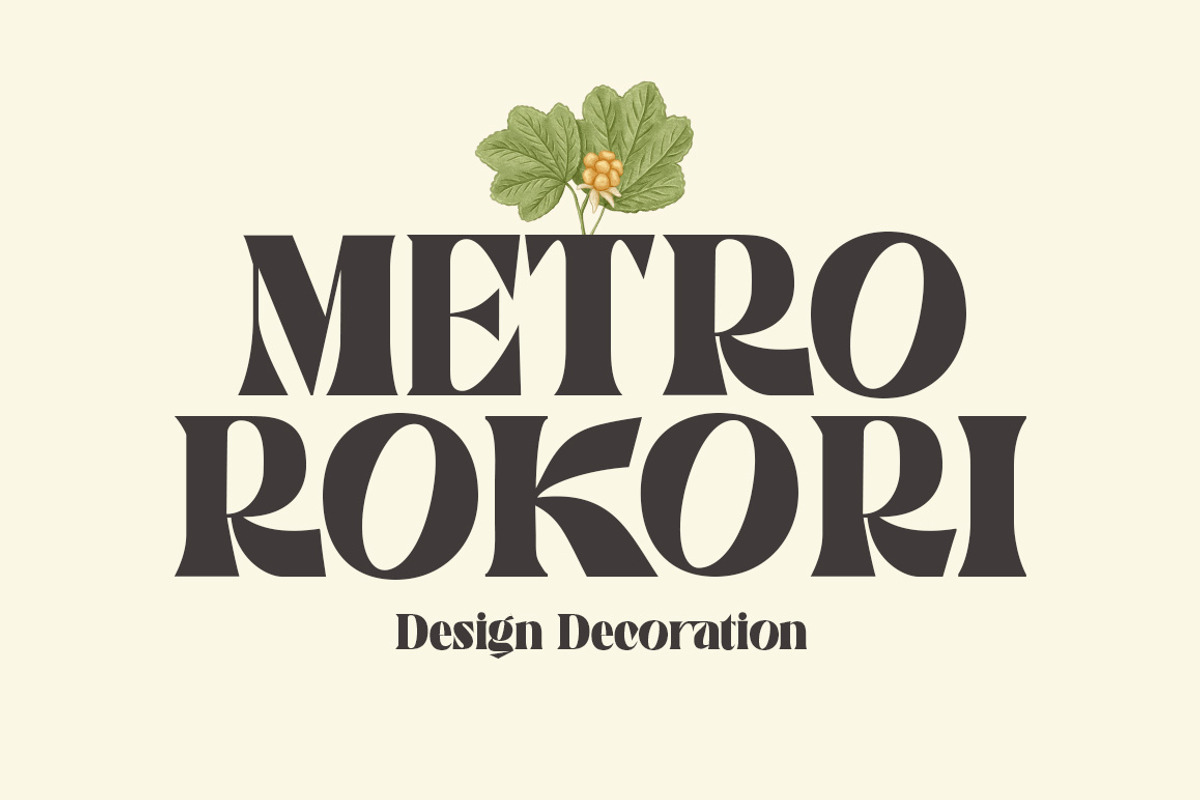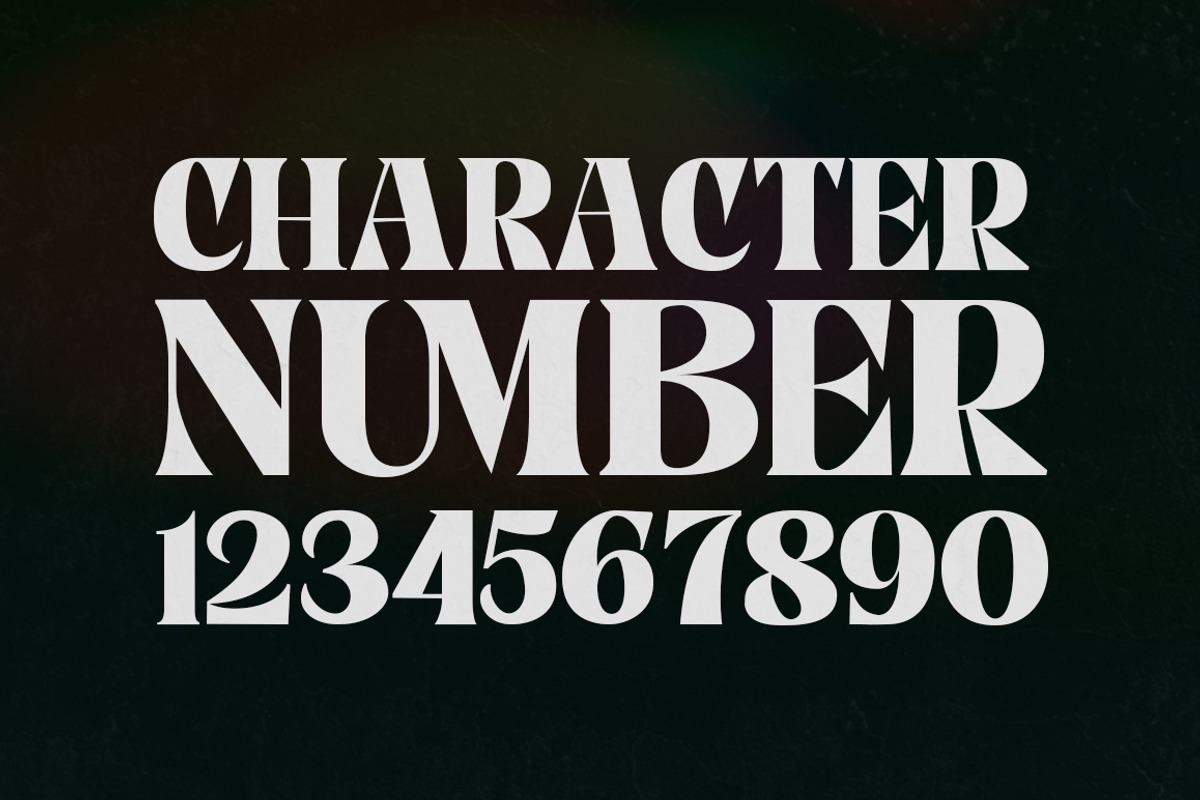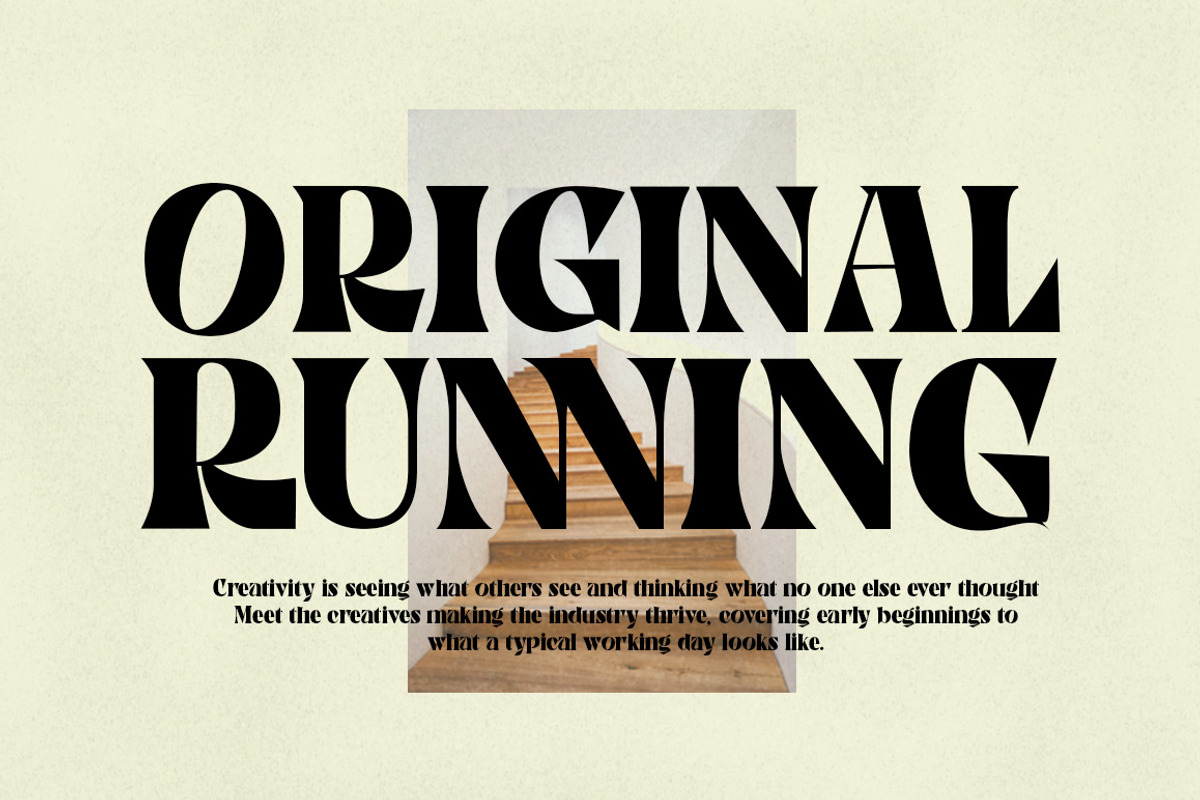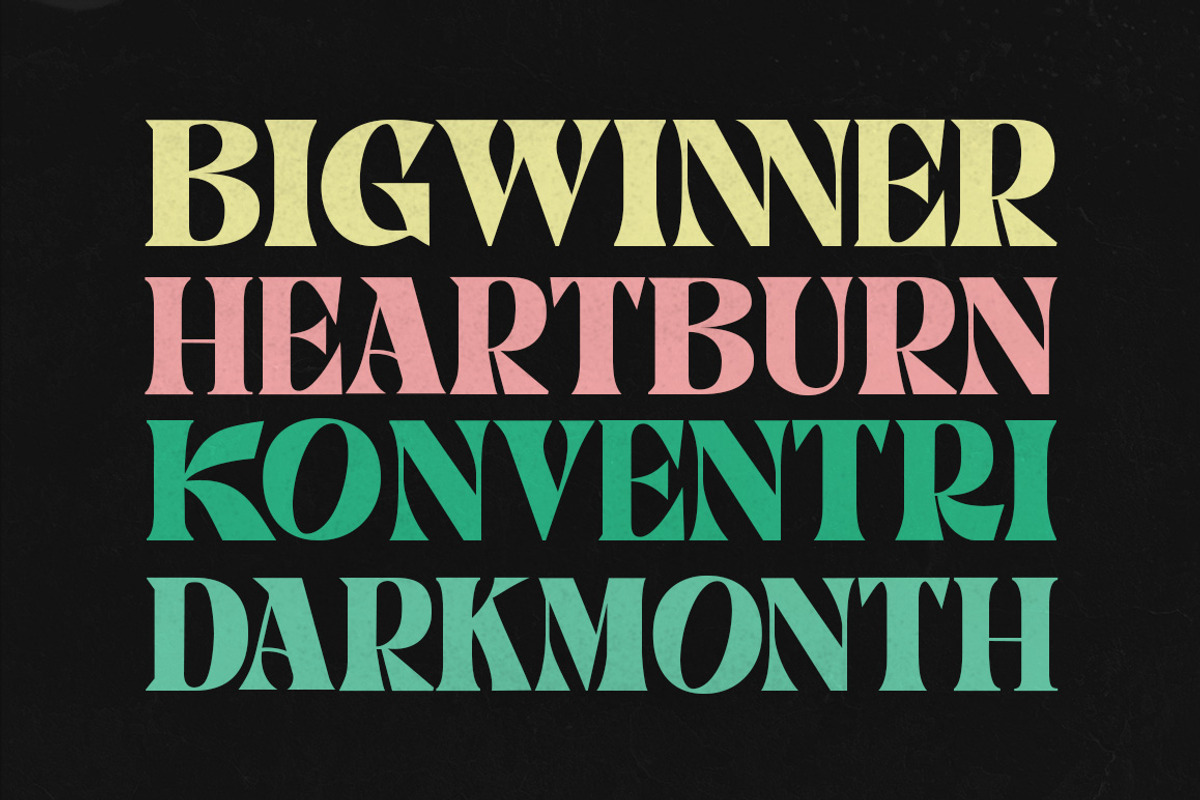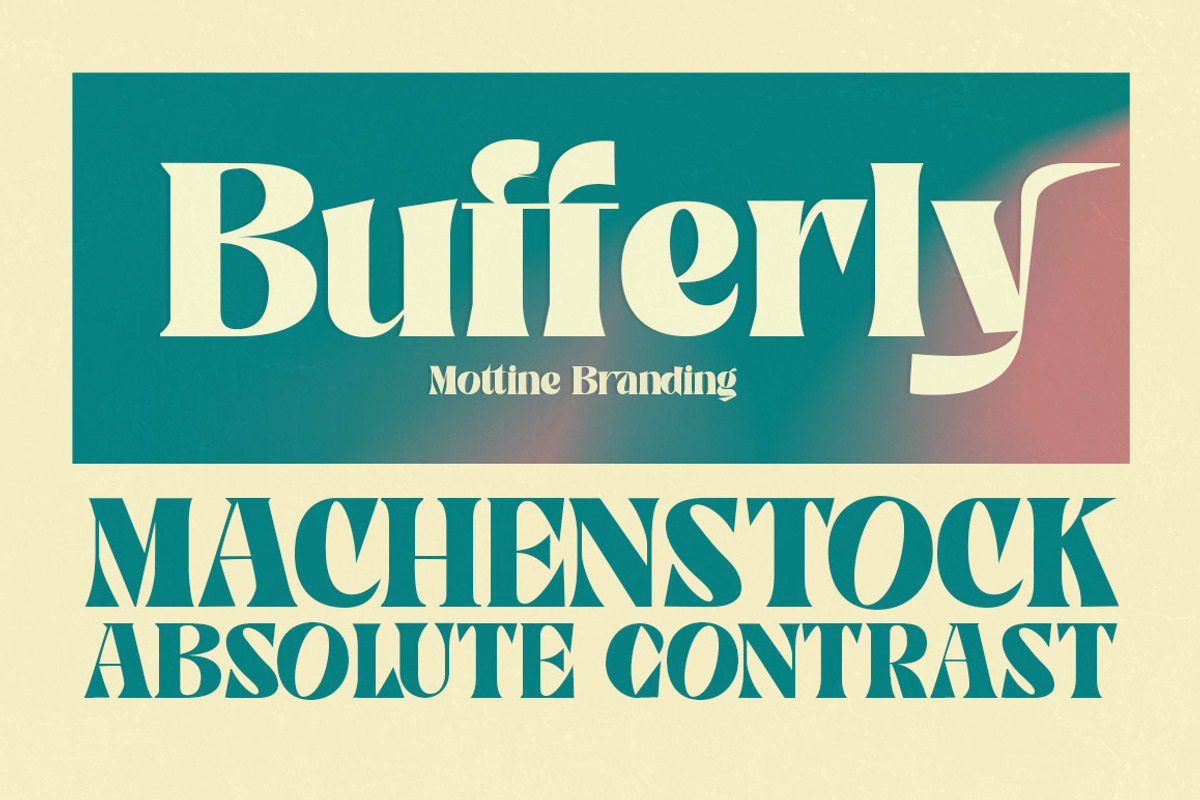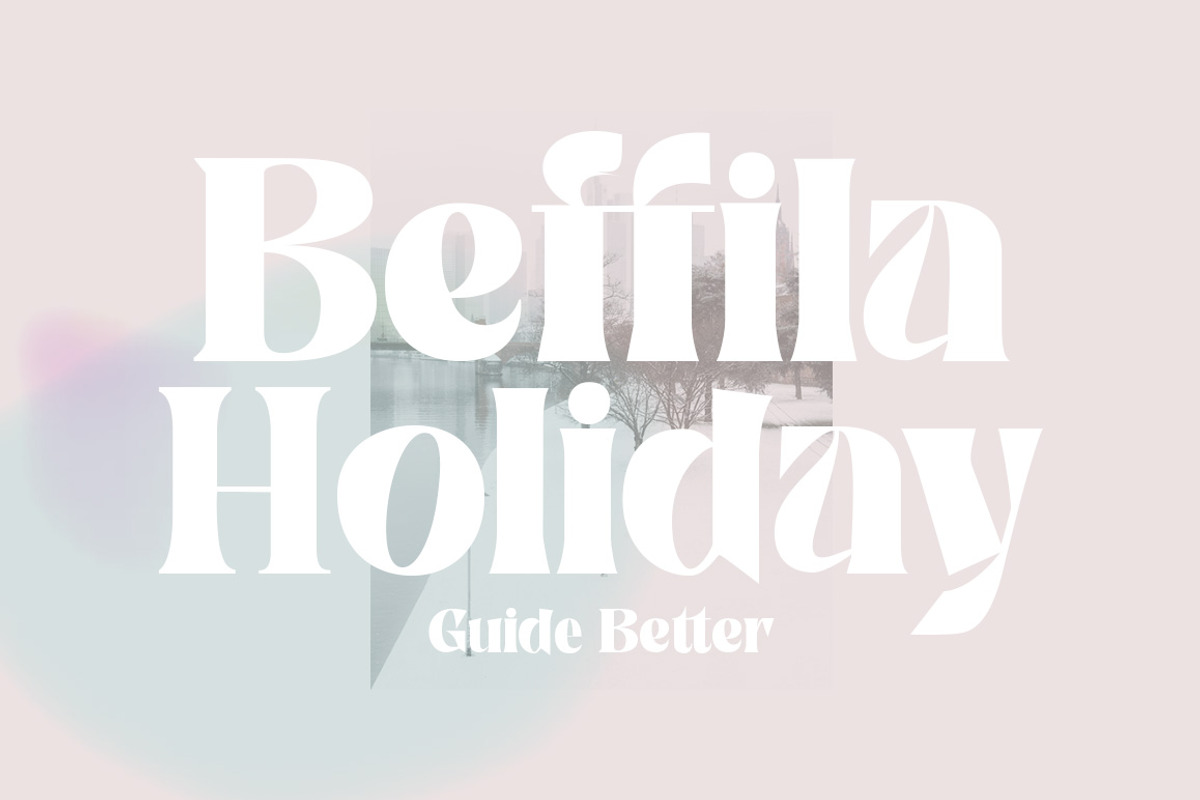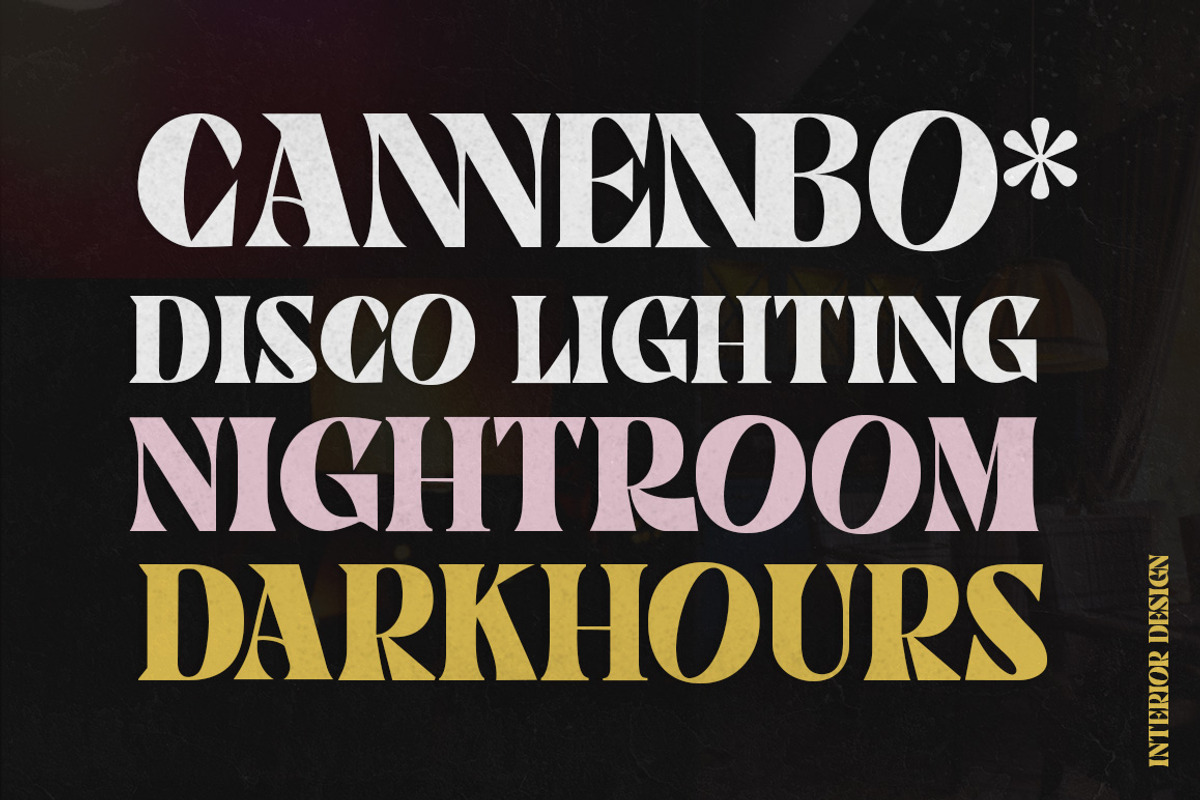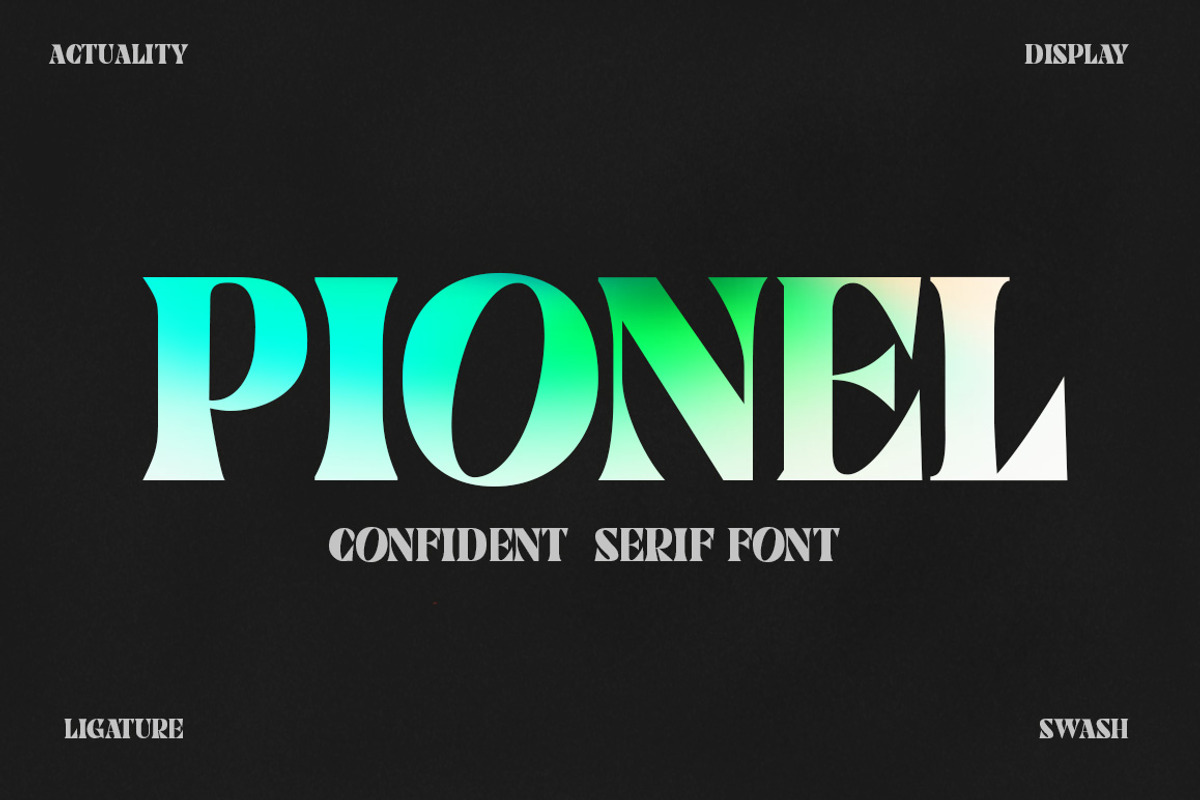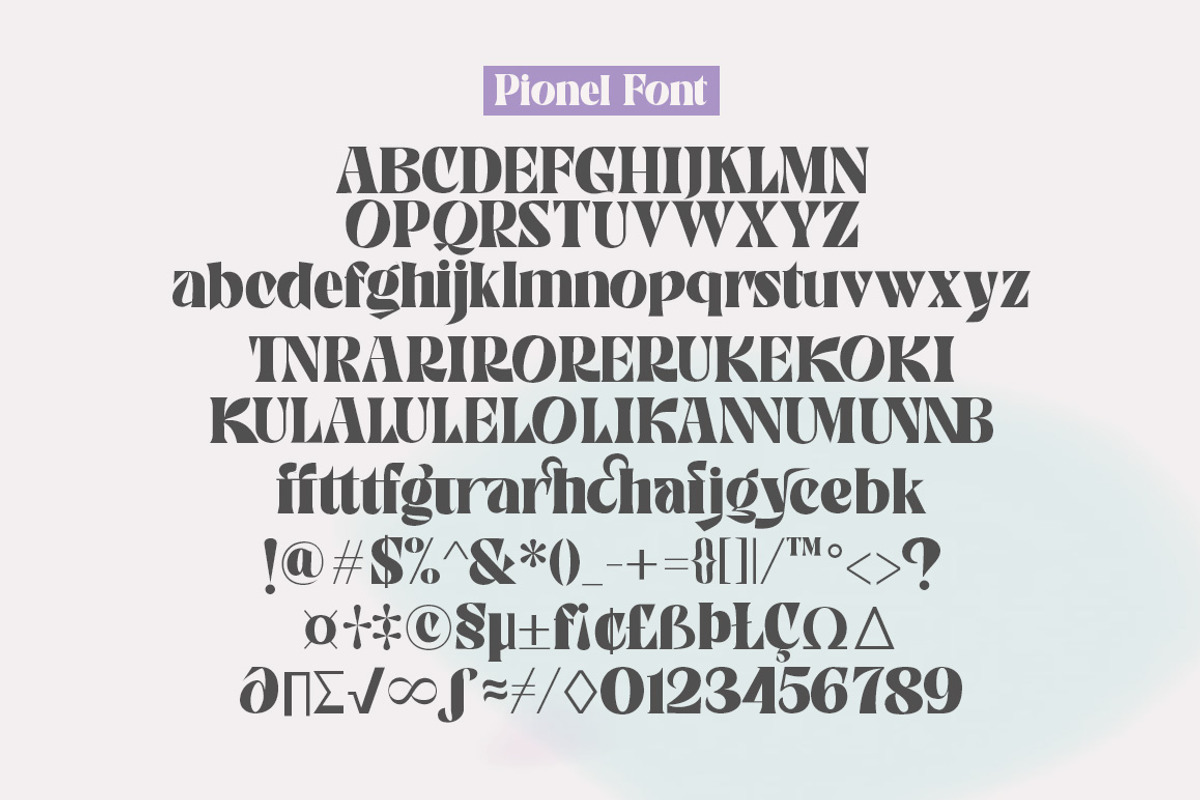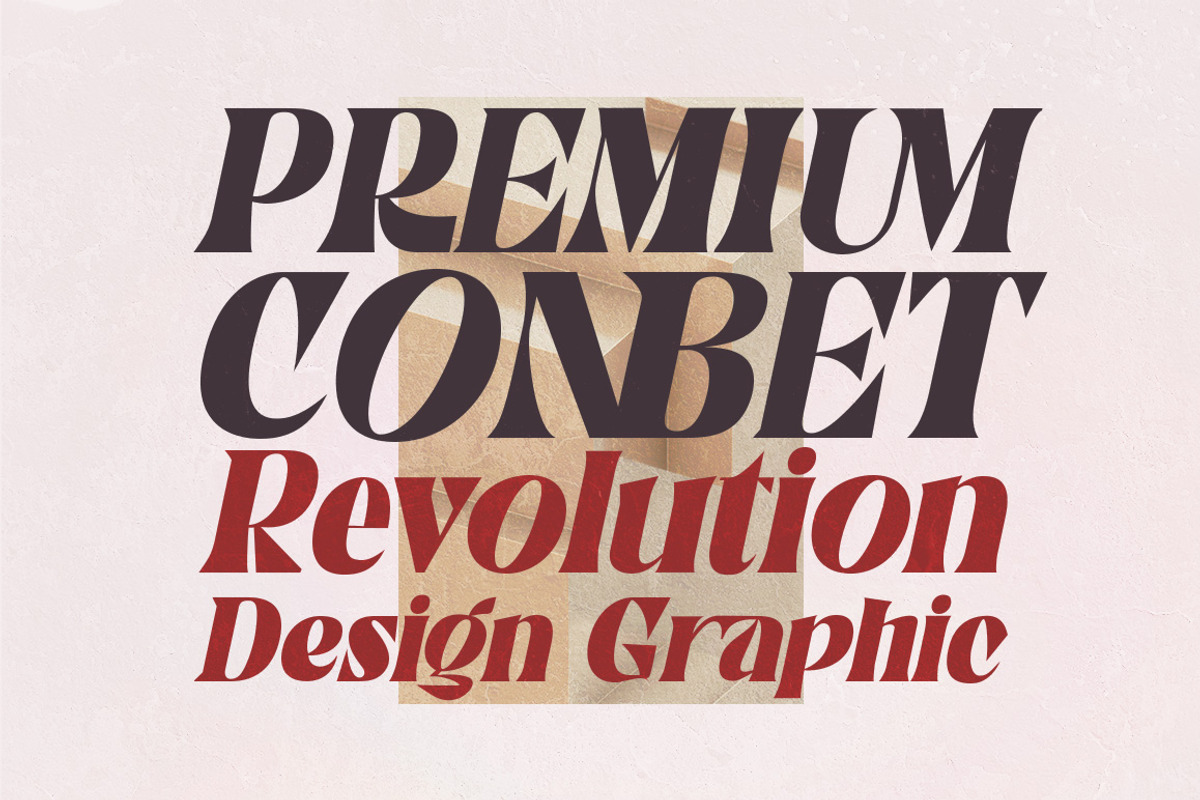
Pionel
Pionel display font with charming and elegant style. Characters that match the latest style will be very interesting for you to create design works with classy models but still maintain a stable and classy style to look at.
You will have inspiration with many Ligature and swash Glyph alternates styles to combine with your great creativity!
Multilanguage Support.